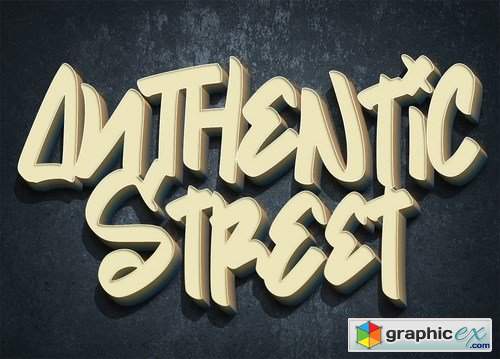
Street Art Street Typeface
Street Art is a free style font that has the characteristics of street art that shows freedom and is filled with unique characters